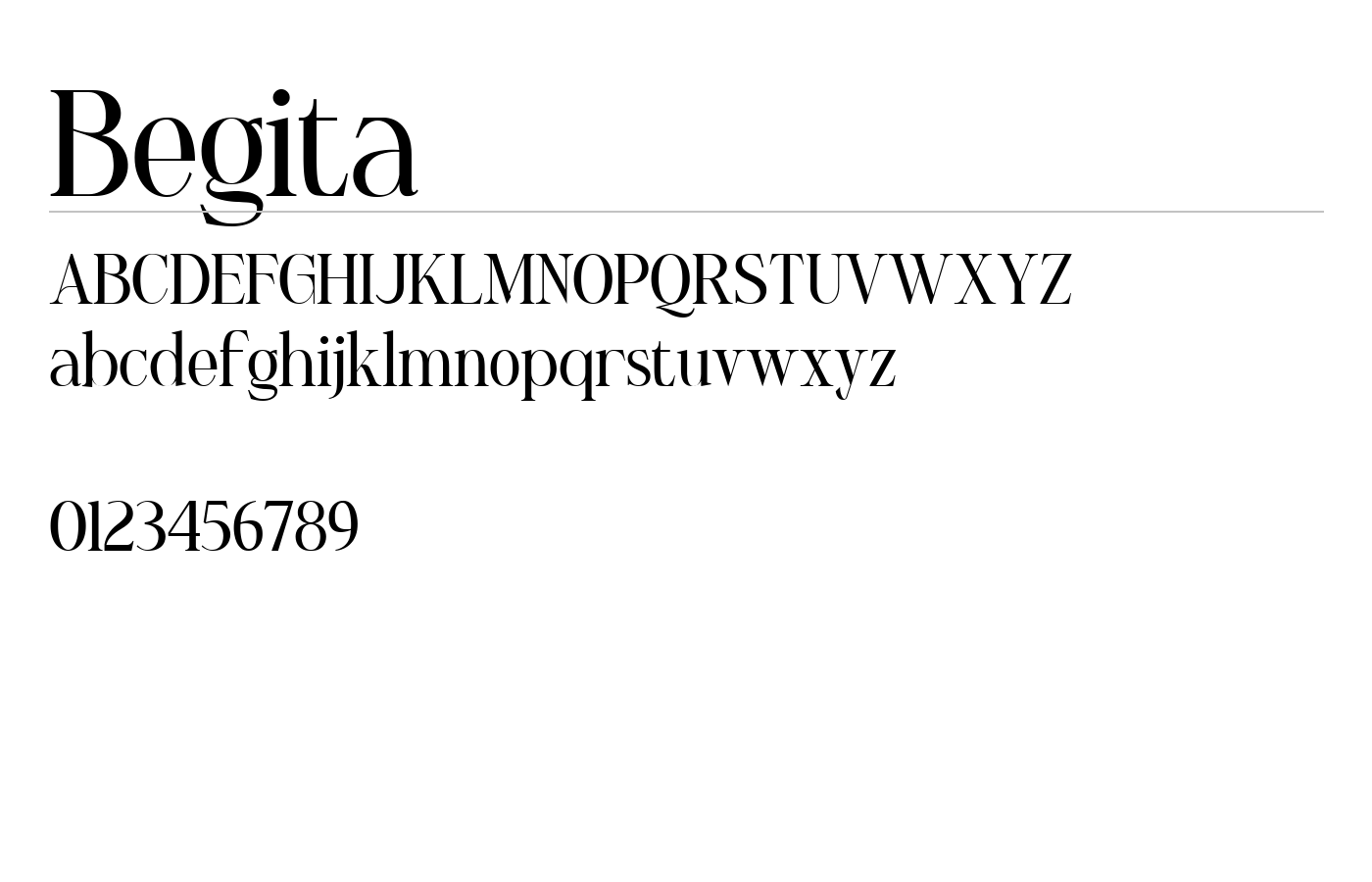
Begita is a refined serif font that combines elegant high contrast strokes with slender, slightly condensed letterforms, creating a sophisticated and modern look. Its delicate serifs and graceful details make it ideal for luxury branding, editorial headlines, and fashion packaging where a stylish and polished impression is desired. This font's classic yet contemporary design brings a sense of elegance and professionalism to any visual project.
Begita Font
About Begita Font
| Font family | Begita Font |
| Designer | Keristyper Team |